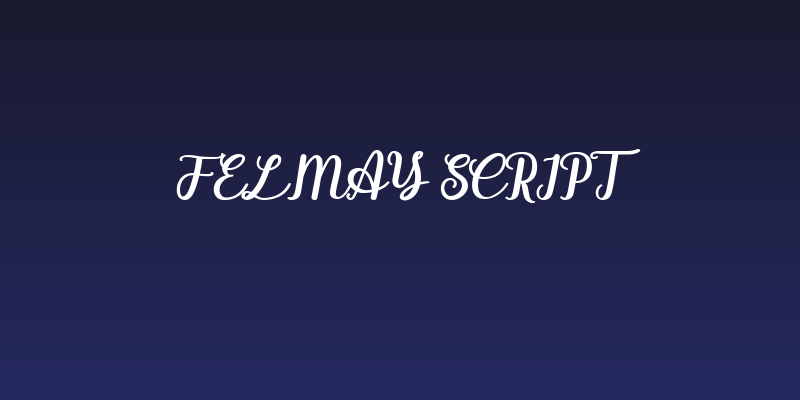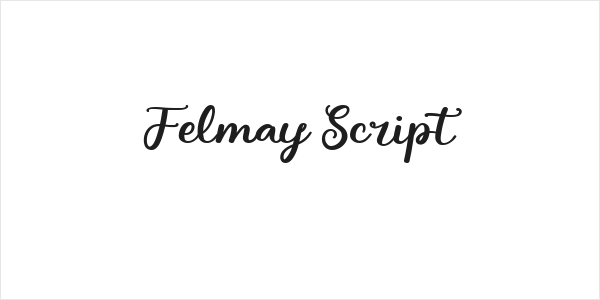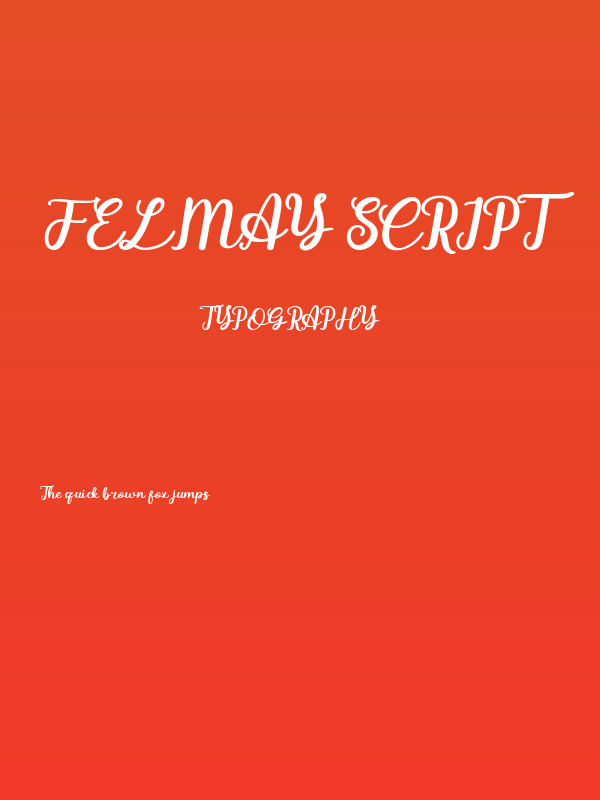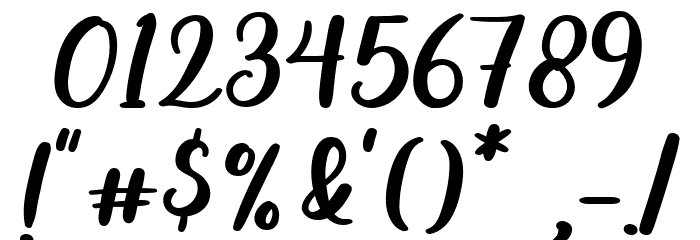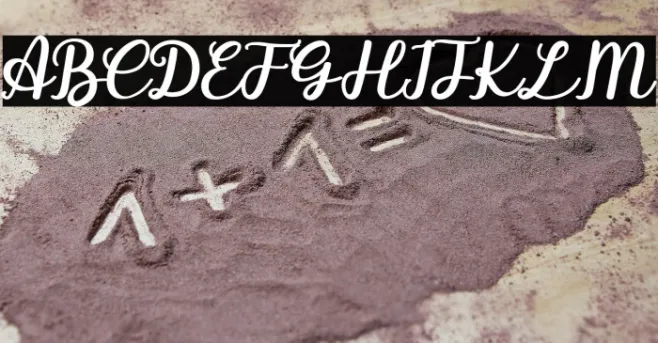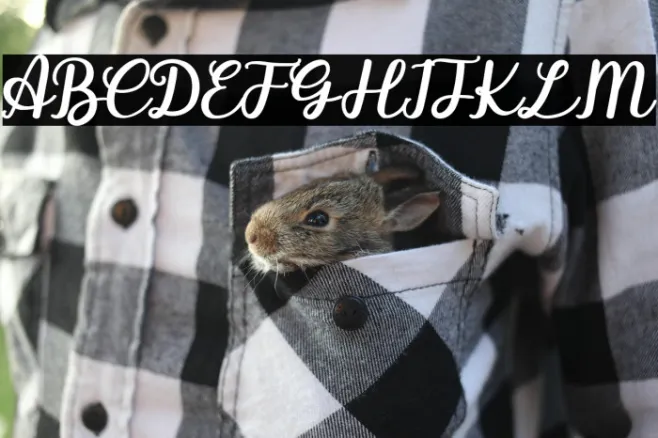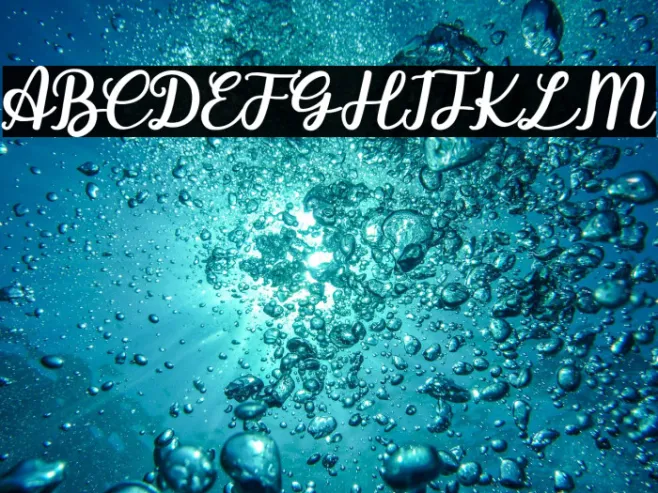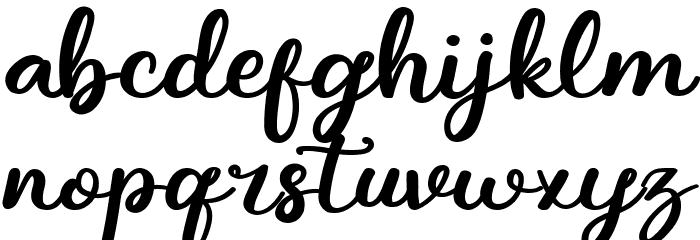
Felmay Script Font
Felmay Script Description
This font features a flowing, cursive style that exudes elegance and sophistication. The letters are interconnected, creating a seamless and harmonious look. The uppercase characters are bold and prominent, while the lowercase letters maintain a consistent flow with gentle curves and loops. The numerals are distinct and maintain the script style, adding a touch of flair. Special characters are well-integrated, ensuring versatility in various design contexts. The overall appearance is both classic and modern, making it suitable for a wide range of applications.
| Overall Style | Elegant, Modern |
| Proposed Projects | Ideal for wedding invitations, greeting cards, branding, and elegant logo designs. |